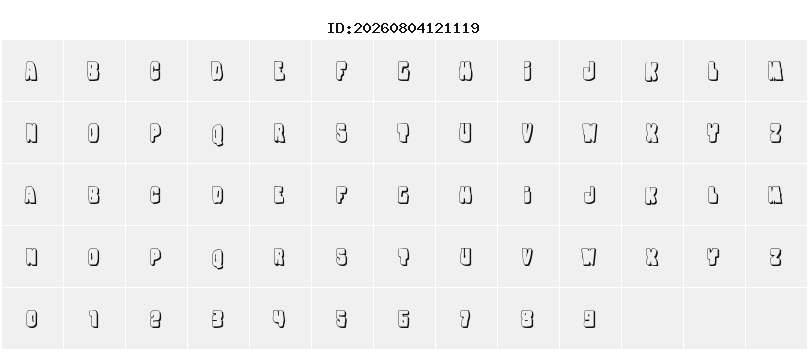
• Font Name: Nobody's Home 3D
About Nobody's Home 3D.ttf
Nobody's Home 3D.ttf is a modern, elegant sans-serif font designed for ultimate readability and visual harmony. Perfect for branding, headlines, web design, and print materials.